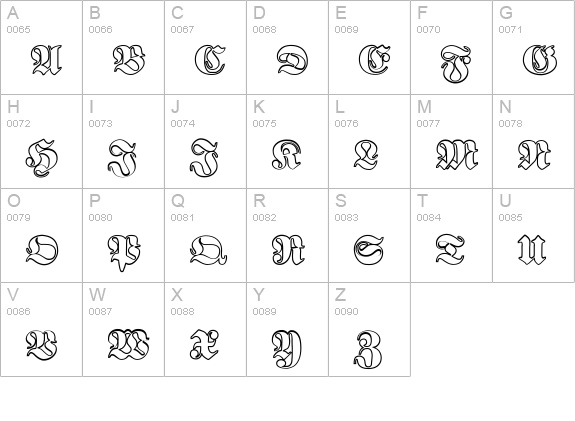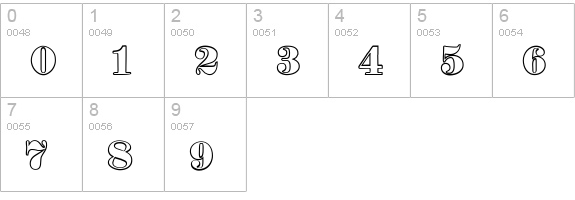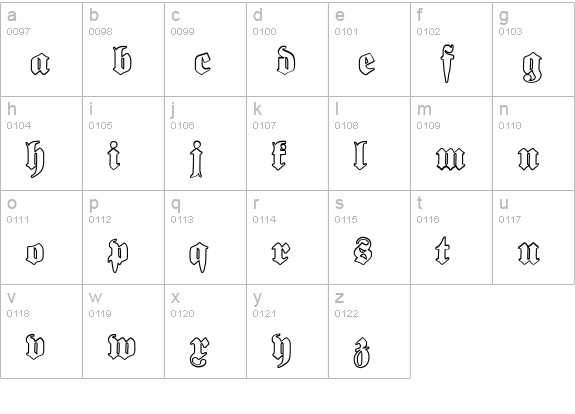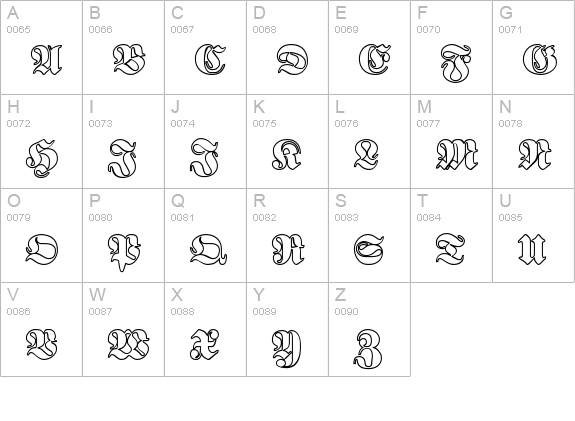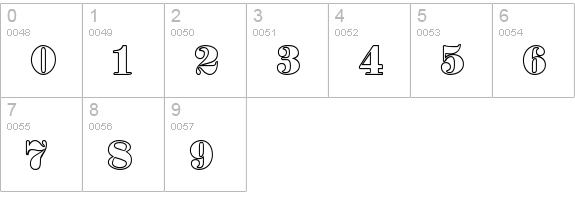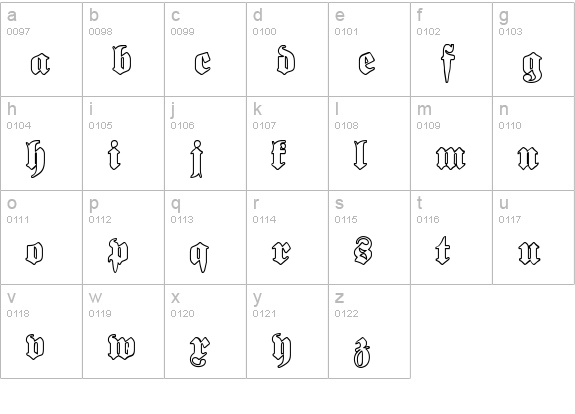
Proclamate Outline Heavy Font Details
Proclamate Outline Heavy is a heavy, high-impact variant in the Proclamate typeface family \xE2\x80\x94 well suited to high-impact headlines, posters, and display advertising.
Proclamate Outline Heavy font is a bold and striking typeface that demands attention with its strong and impactful appearance. The sharp, clean lines of this font give it a modern and edgy look, making it perfect for designs that require a touch of boldness and sophistication. Whether used for headlines, posters, logos, or branding, Proclamate Outline Heavy font is sure to make a statement. The best part? Proclamate Outline Heavy font is free to download at FontsMarket.com, making it easily accessible for all designers and creatives looking to add a touch of bold elegance to their projects. Don't miss out on the opportunity to enhance your designs with this eye-catching typeface – download Proclamate Outline Heavy font today and let your creativity shine!